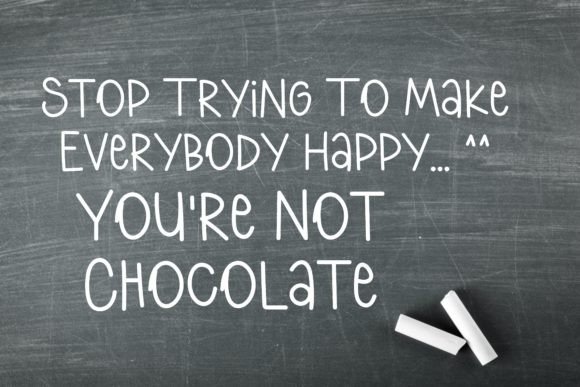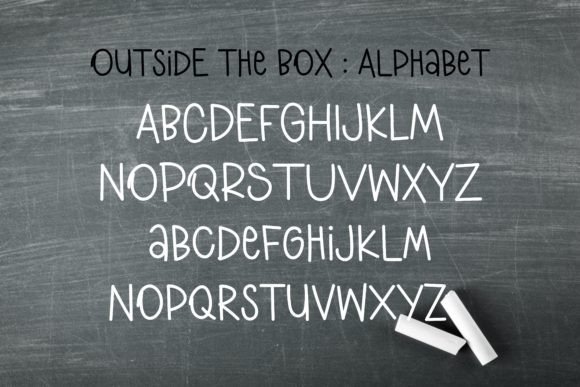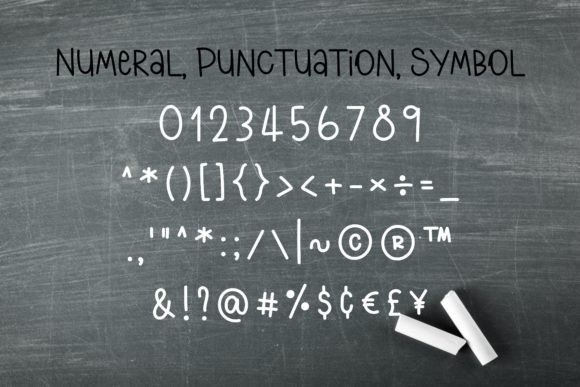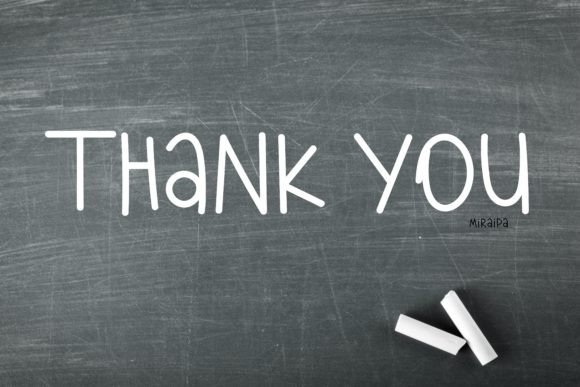
Introduction to Outside the Box Font
Outside The Box is a friendly and cute handwritten sans serif font.
Add it to your crafty ideas and enjoy the results .